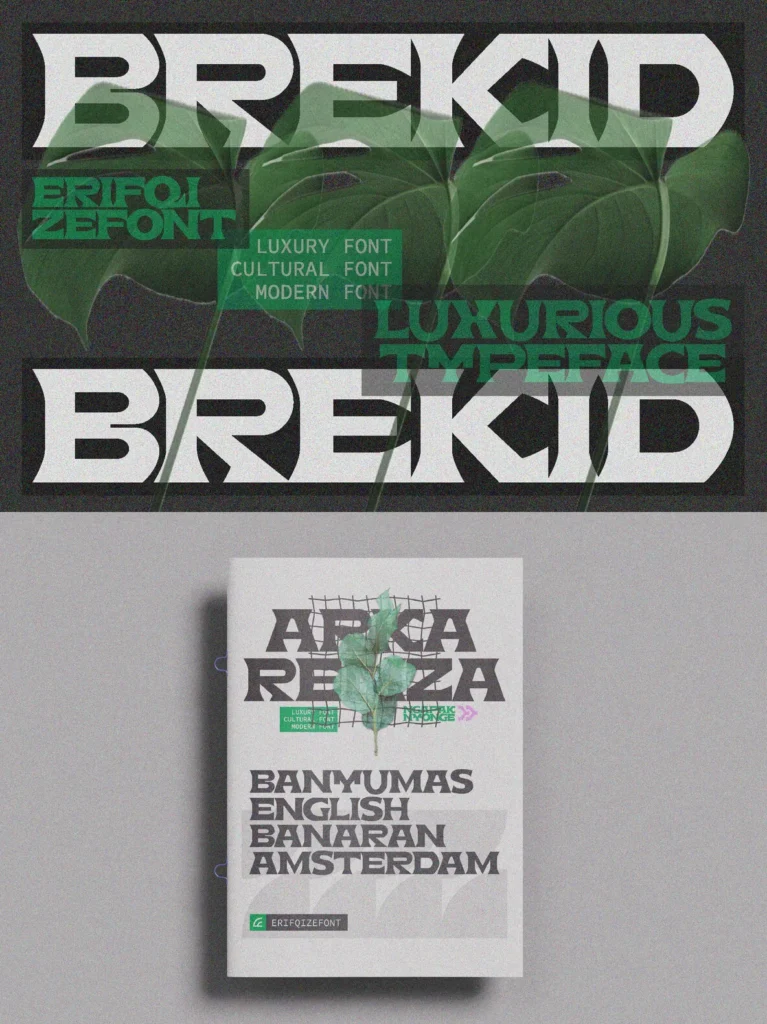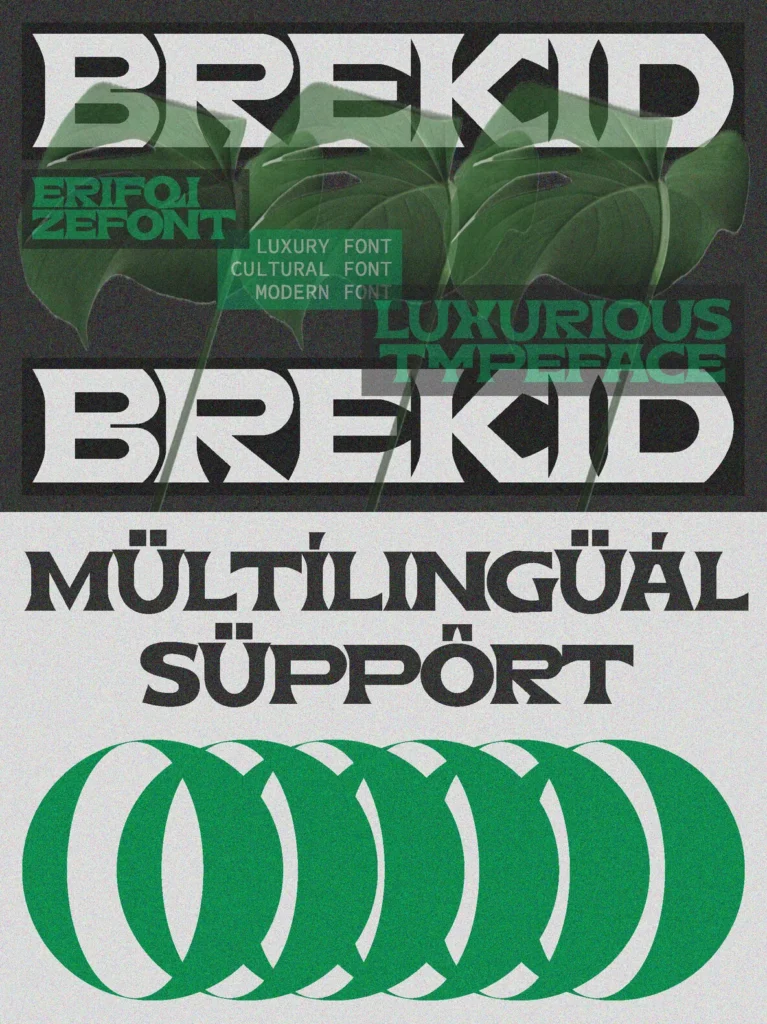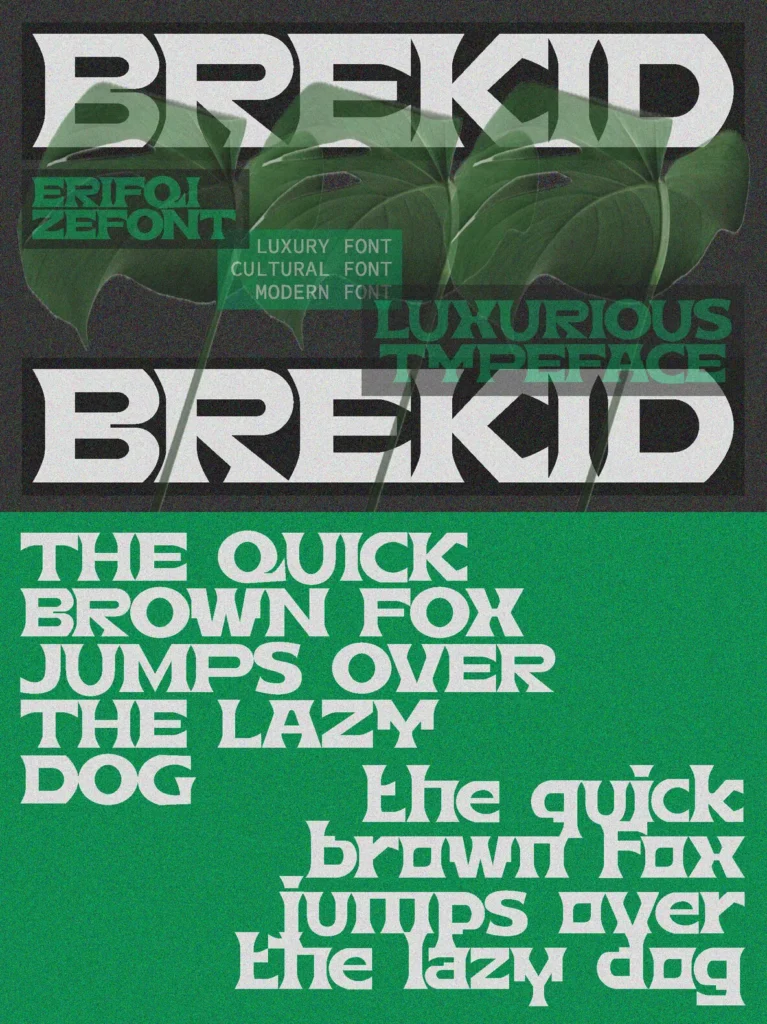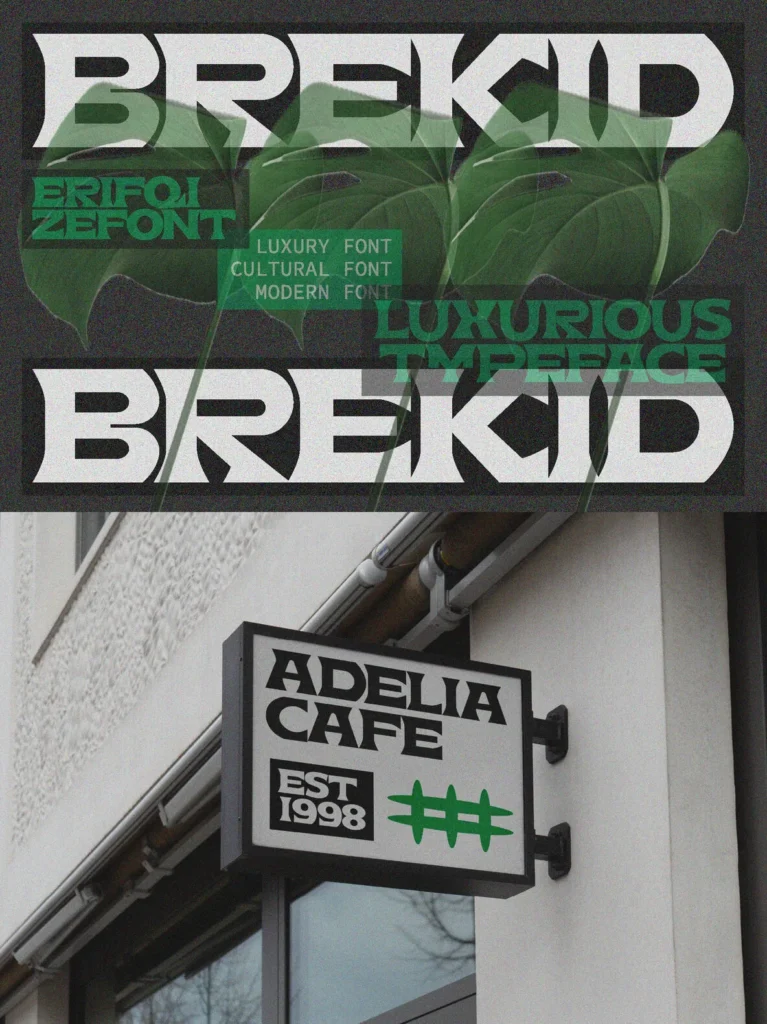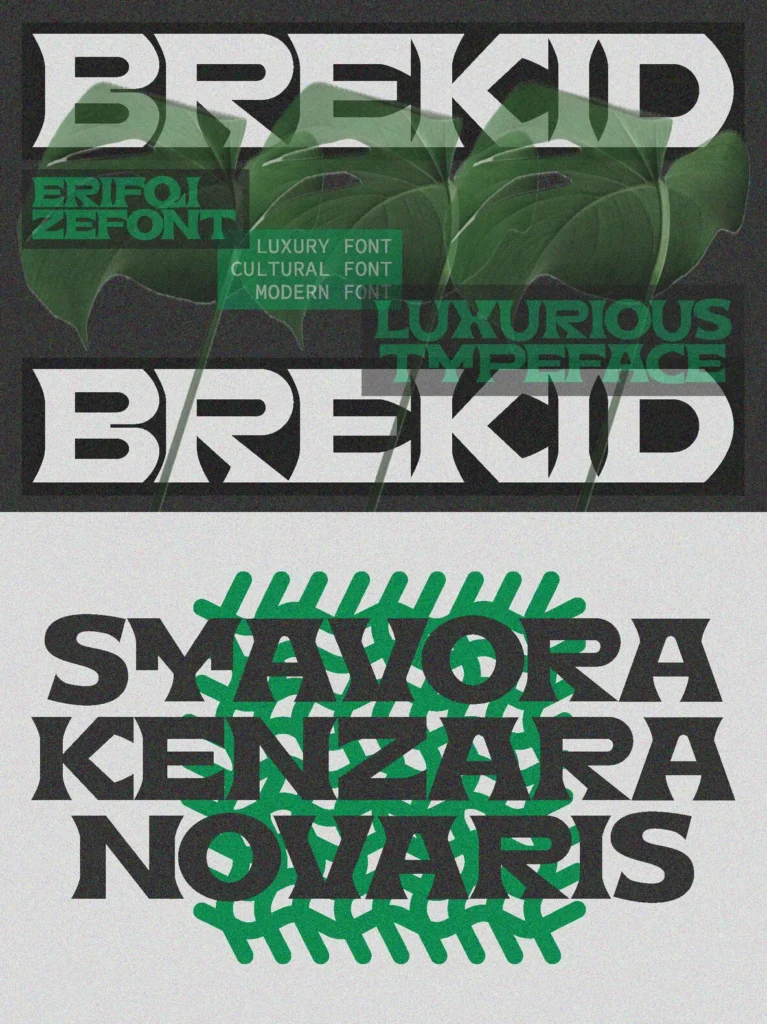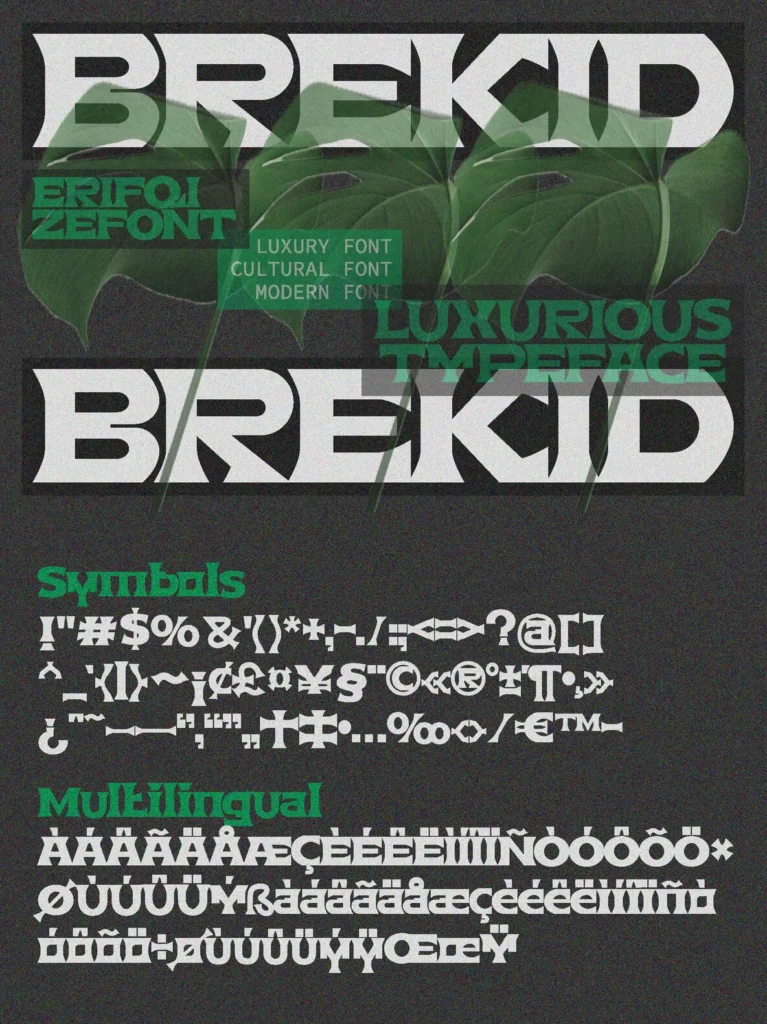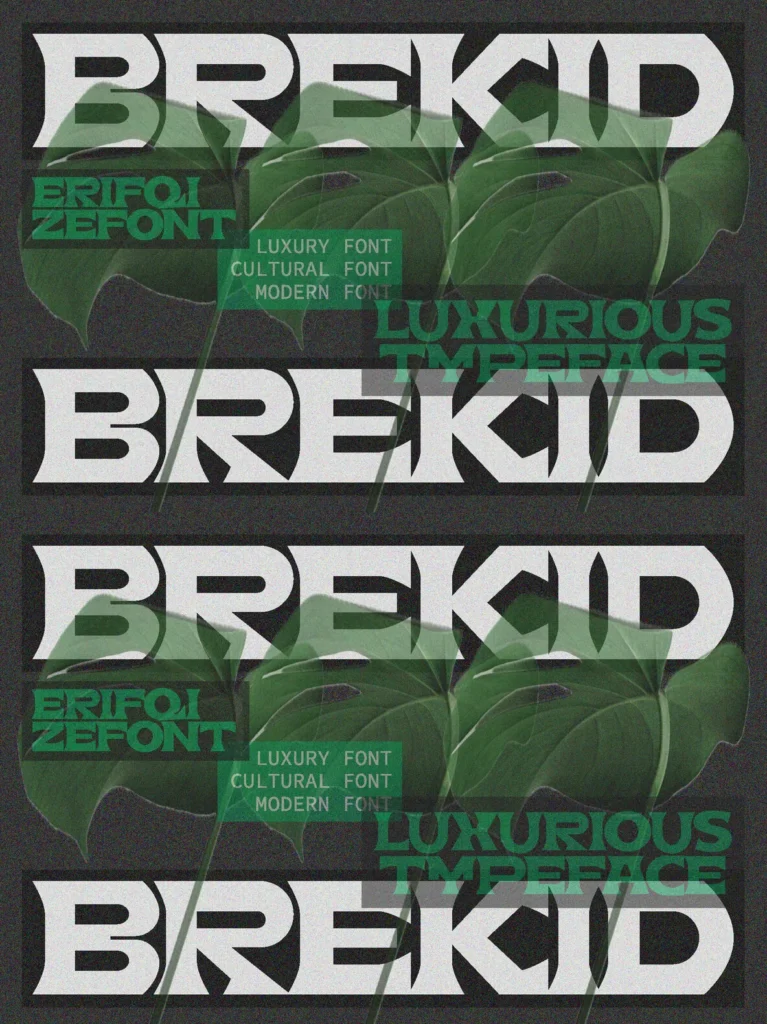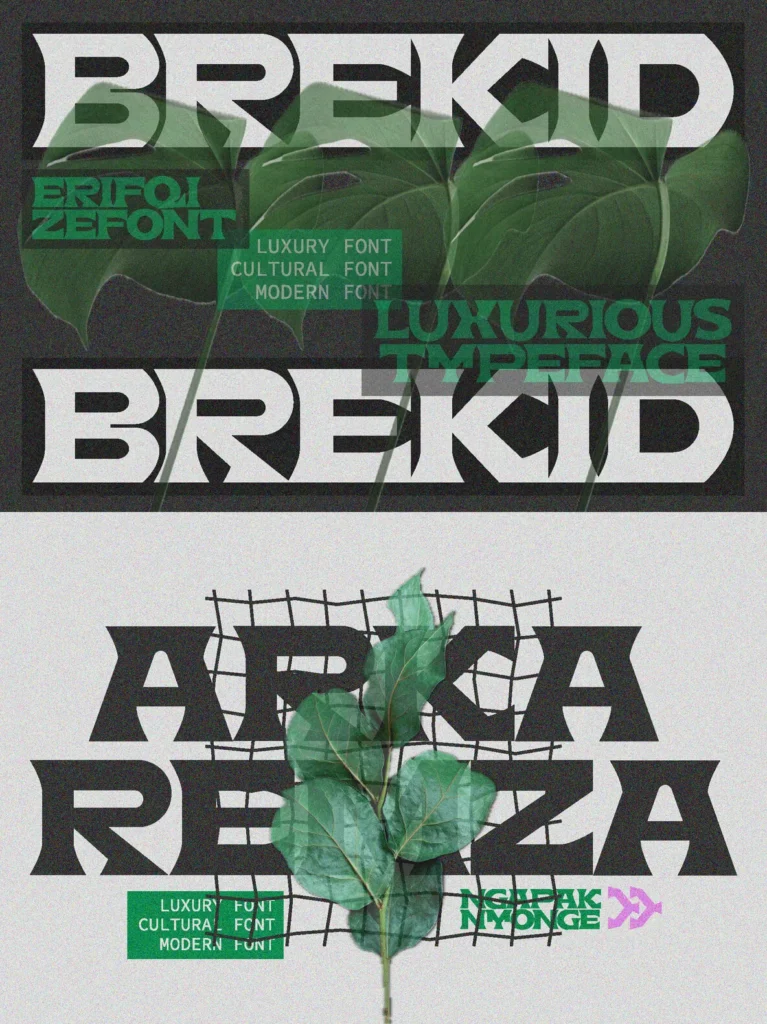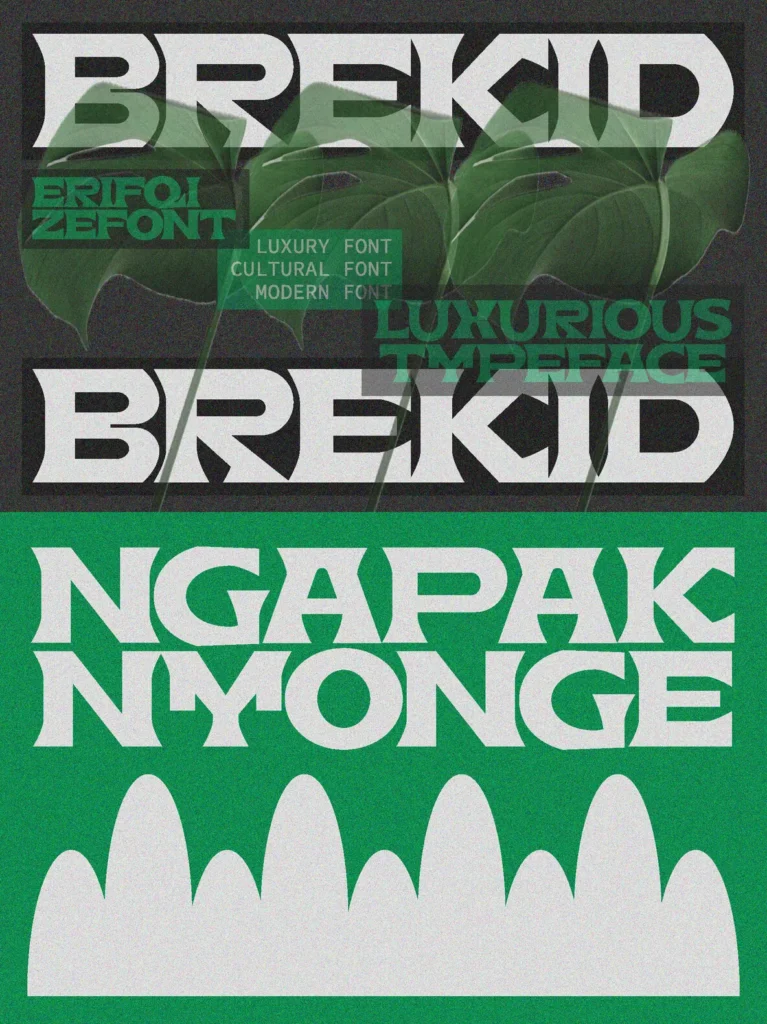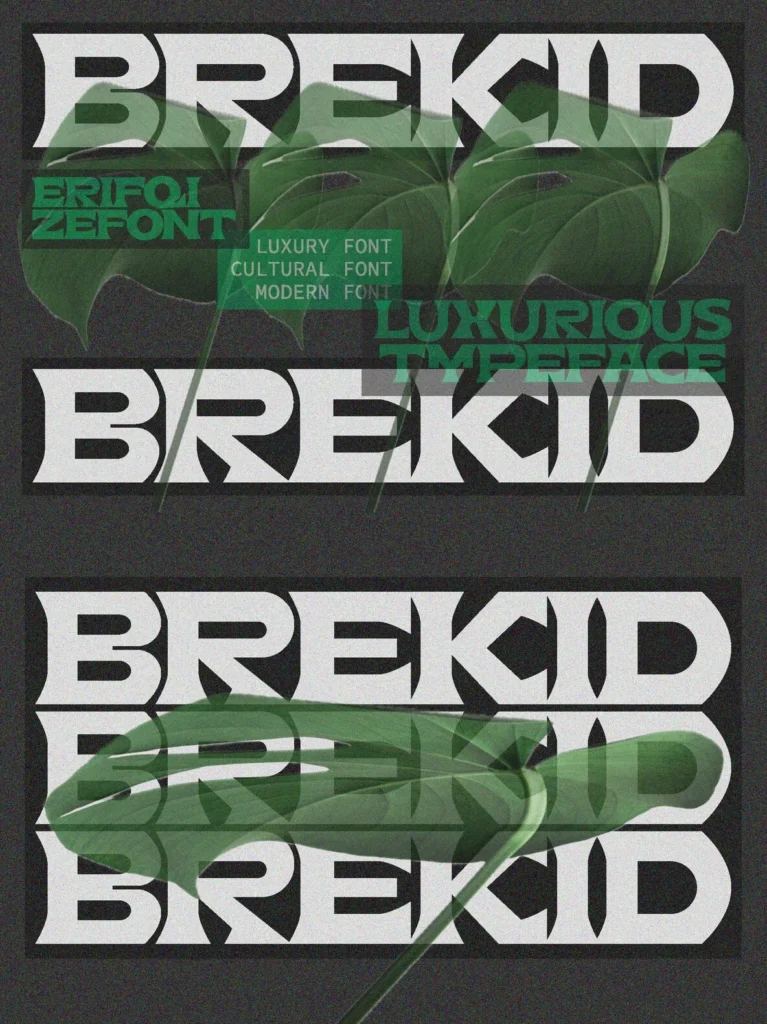
BREKID — Cultural Luxury in Display Type
BREKID is a luxurious cultural display font that brings modern elegance together with ethnic-inspired aesthetics. Its sharp geometric cuts, bold letterforms, and artistic ornamental details give the typeface a strong visual identity. It is well suited to premium branding, cultural projects, fashion editorials, luxury packaging, posters, album covers, and modern ethnic designs.
The font’s futuristic structure and cultural nuances create a sophisticated, exclusive atmosphere across digital and print applications. BREKID is made for creators who need a bold, artistic, and luxurious typographic statement with clear character and immediate presence.